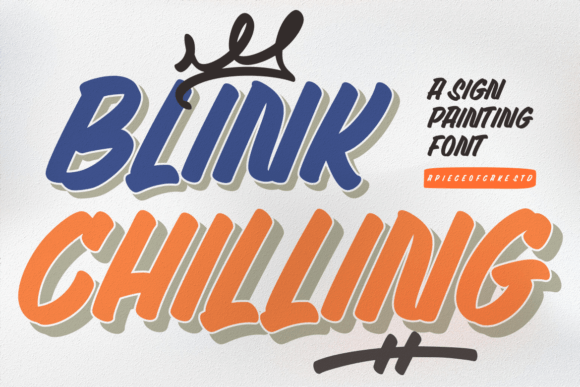
Journey into the world of Blink Chilling, a font that sparks creativity in every stroke. Experience the thrill of bringing your Cricut engraving projects to life with this versatile and captivating font, crafted by the masterminds at A Piece of Cake.
Blink Chilling is more than just a font; it is an embodiment of style and versatility. Its captivating curves and playful charm will infuse your projects with a unique character that speaks volumes. From eye-catching logos to unforgettable branding, from social media posts that pop to headlines that command attention, Blink Chilling is your trusty companion, ready to transform your creative visions into stunning realities.
Imagine unleashing the power of Blink Chilling on your Cricut engraving projects. Its meticulously crafted characters dance effortlessly across various surfaces, leaving behind a trail of elegance and precision. The font's enchanting presence will elevate your creations, adding a touch of sophistication and visual intrigue that leaves a lasting impression.
Blink Chilling's allure extends beyond its Cricut engraving prowess. Its versatility shines in a multitude of applications, making it the perfect choice for designers, artists, and creative professionals of all kinds. Unleash your imagination and explore the endless possibilities that await you with this extraordinary font.
With Blink Chilling as your creative ally, you'll discover a newfound joy in designing. Its intuitive flow and effortless elegance will guide you through your projects, making the creative process a seamless and enjoyable experience. Let Blink Chilling be your muse, inspiring you to create masterpieces that captivate and amaze.